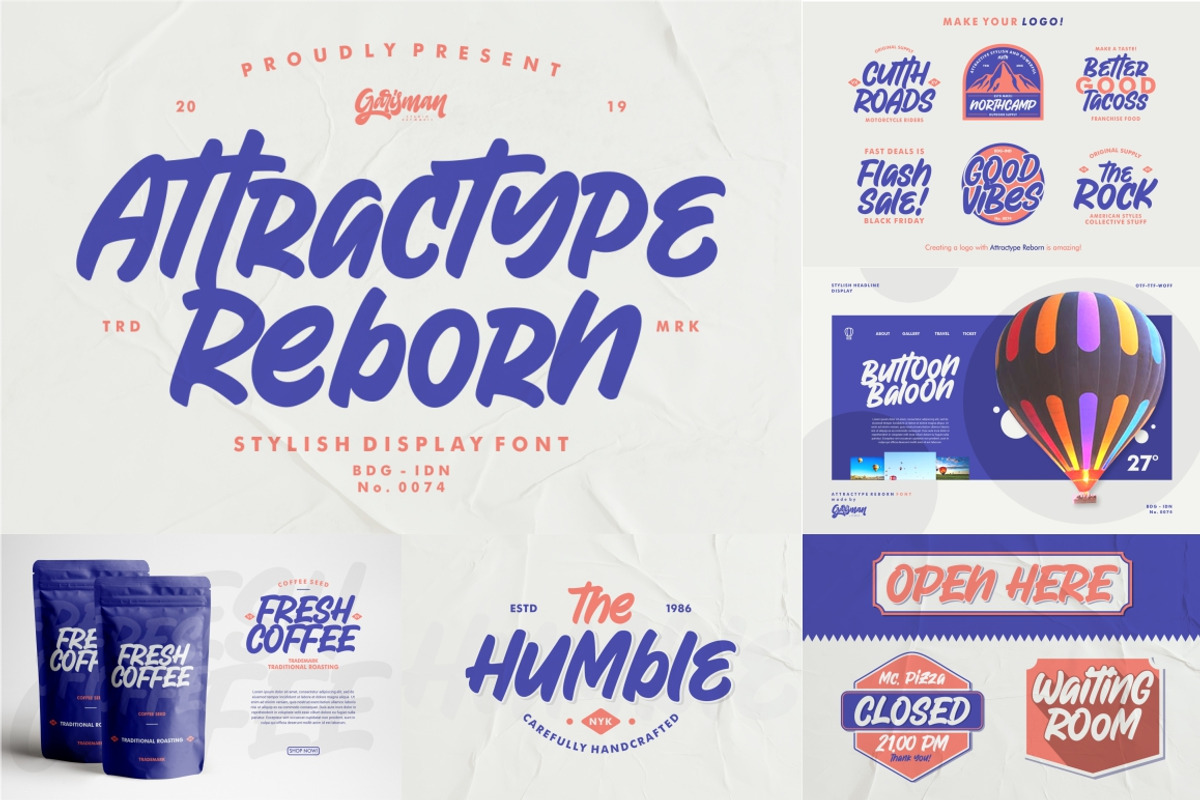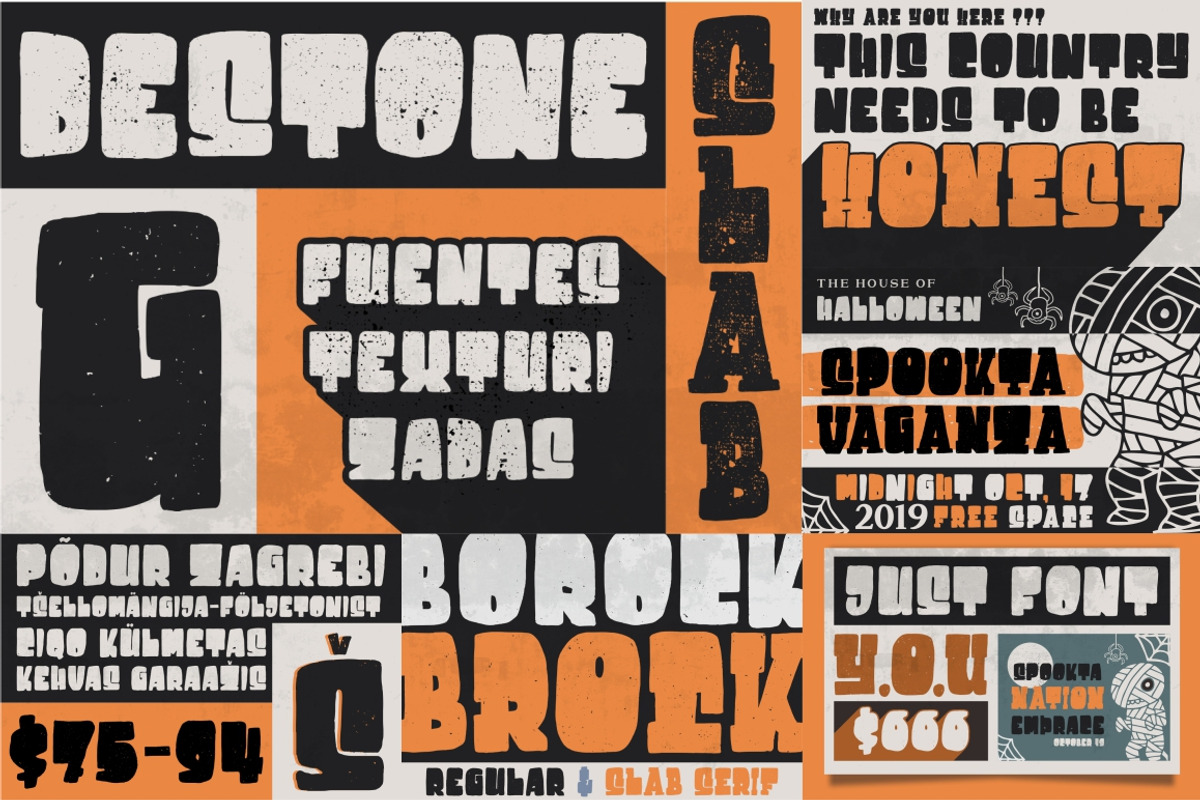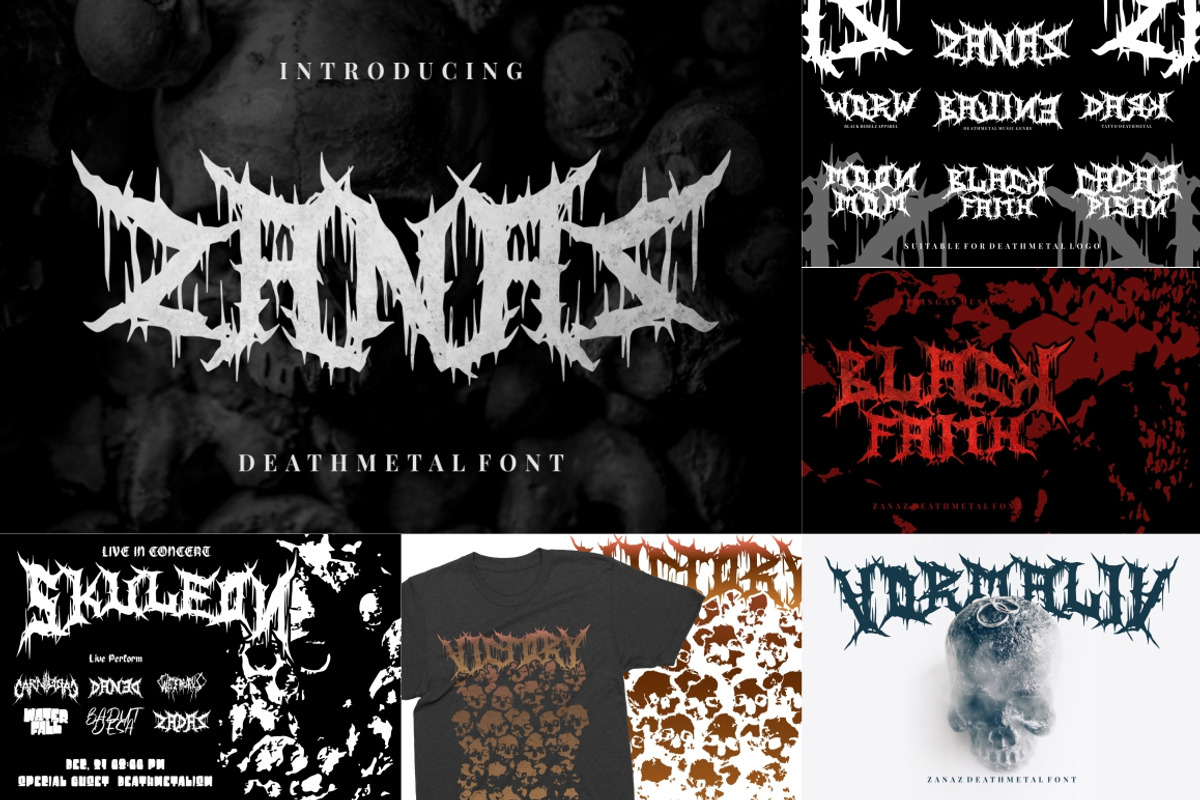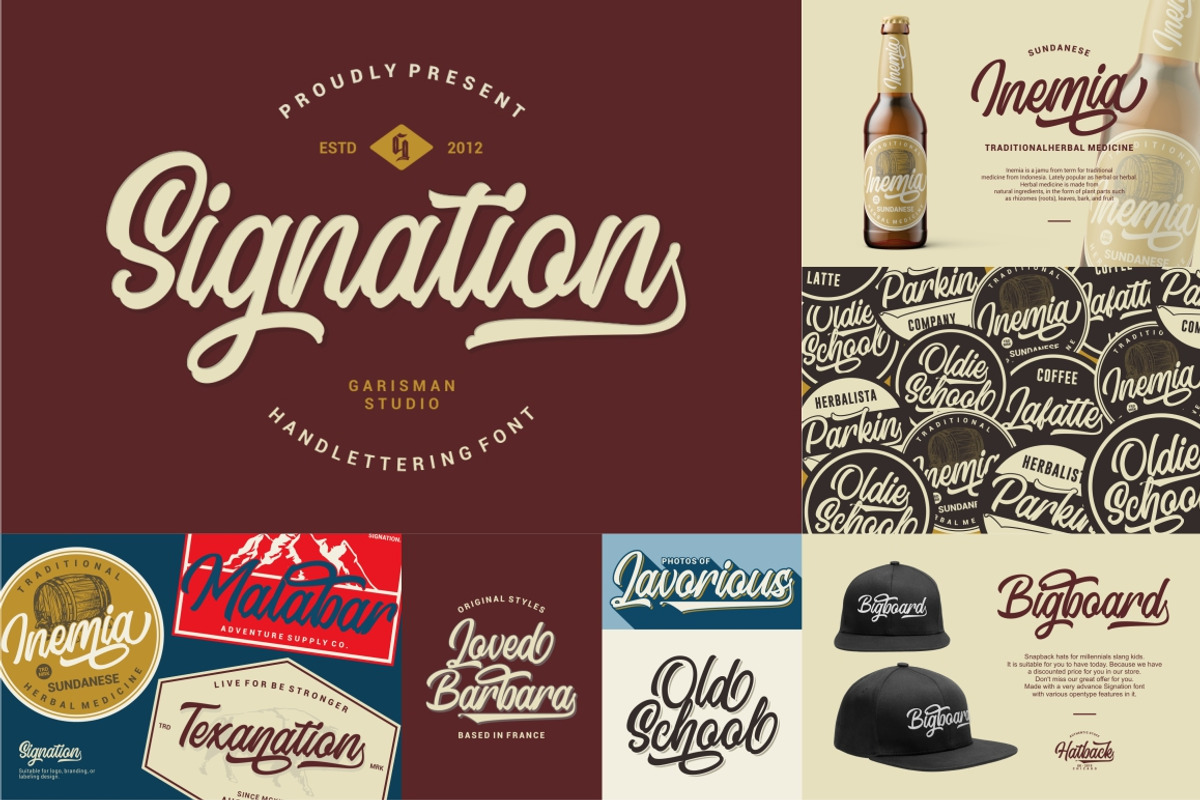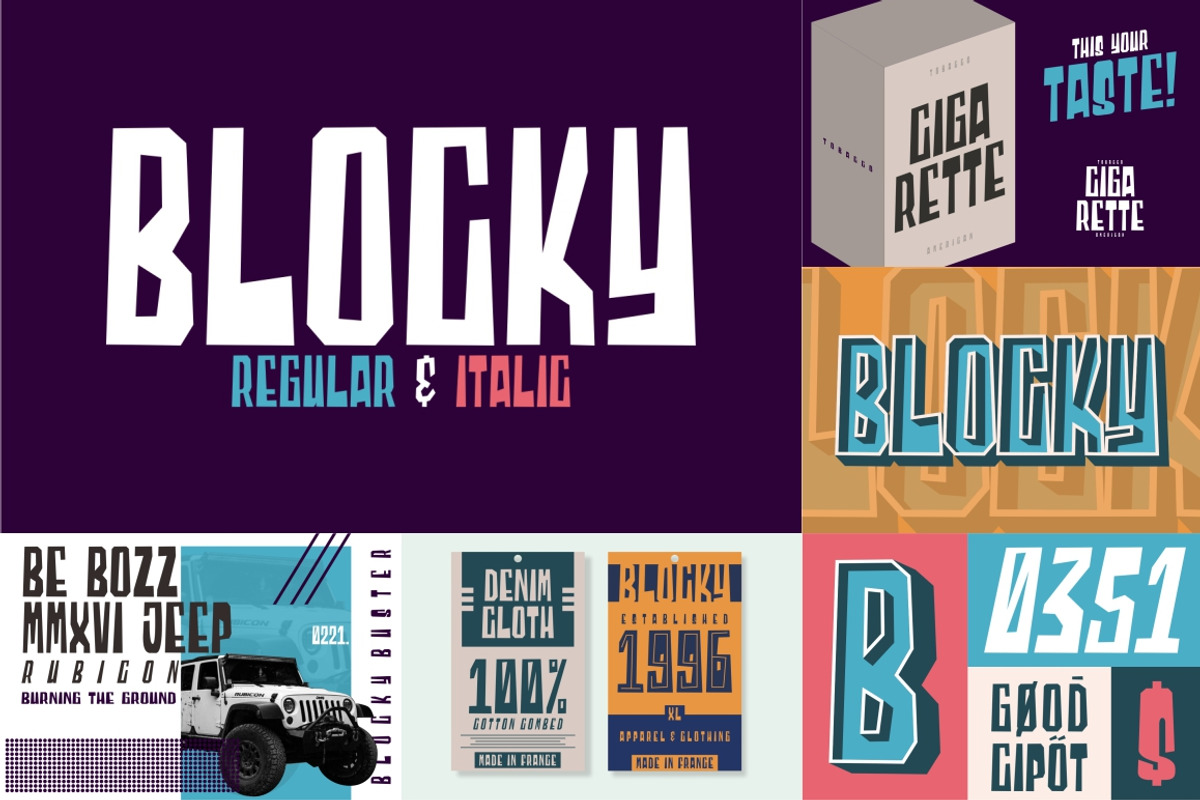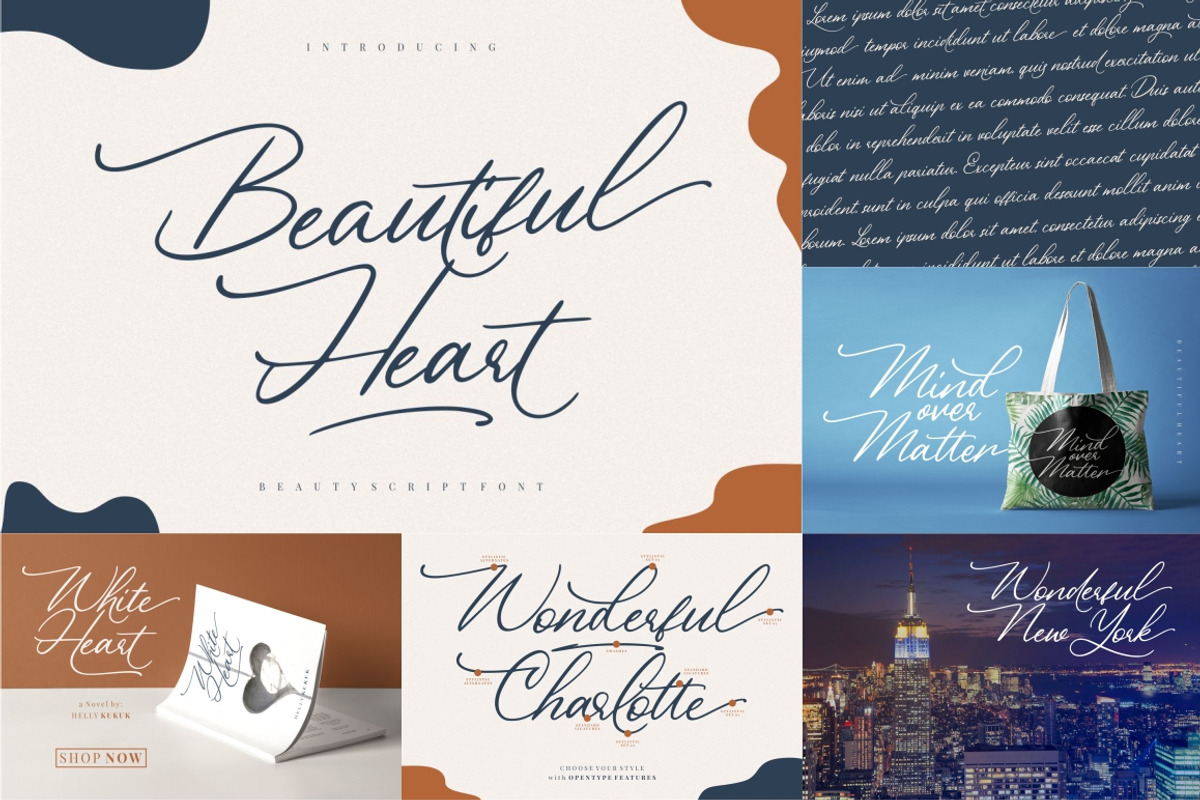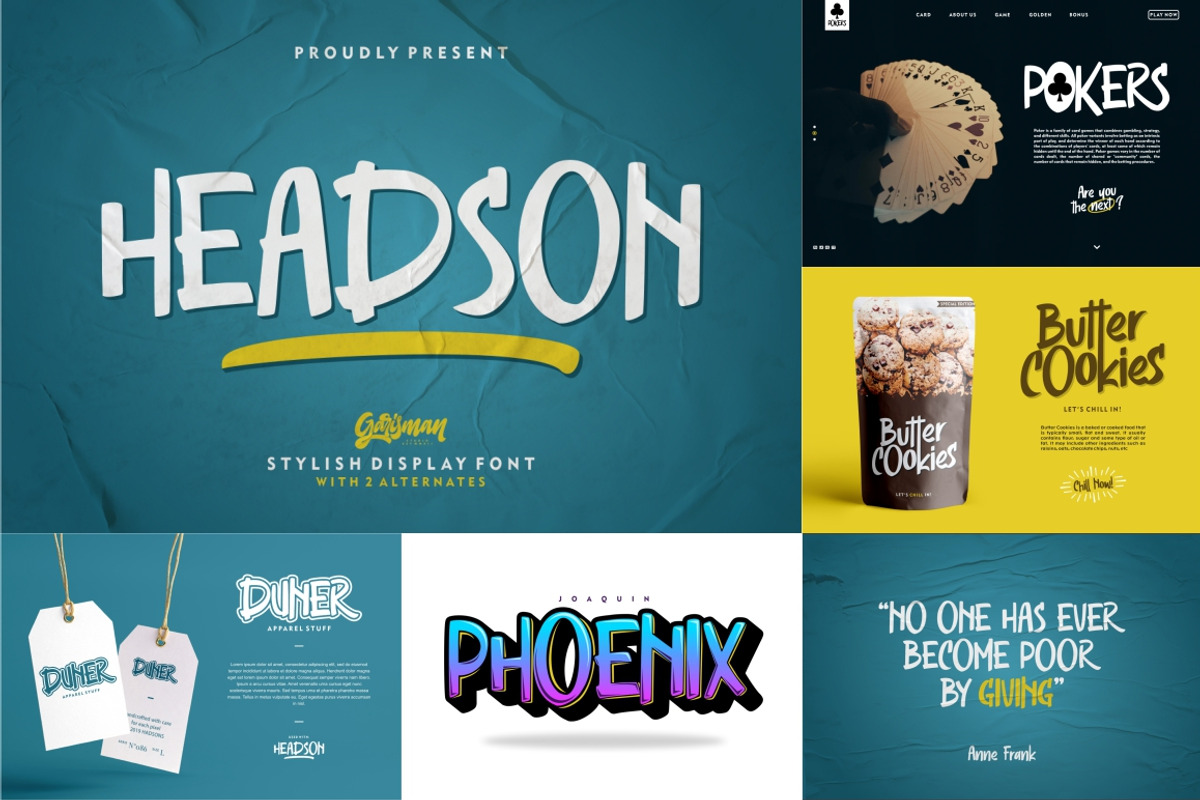
The MEGA FONT COLLECTIONS 2021
WELCOME TO: THE MEGA FONT COLLECTIONS
This bundle has various font styles from brush font, Sans Serif, serif, sans serif clean, watercolor, cartoon, death metal, signature style, logotype font, etc.
All of these fonts can be used for various project needs such as logo design, posters, headlines, wedding cards, invitations, packaging, clothing, etc. with many features such as binder, swash, alternative, multilingual and PUA encoded!
The MEGA FONT COLLECTIONS 2021 by Garisman Std fits naturally into Branding, posters, packaging, typography.